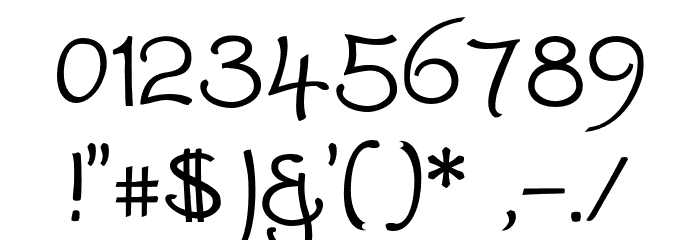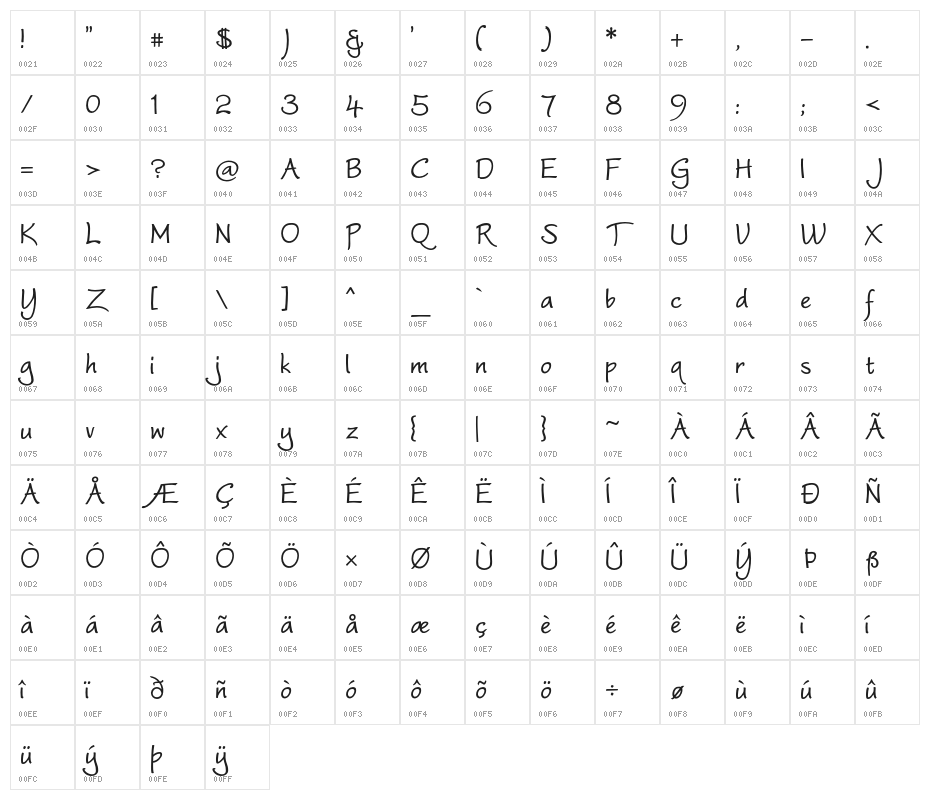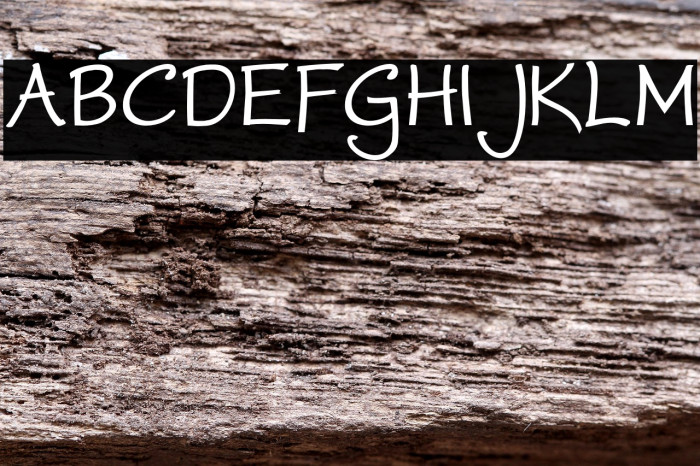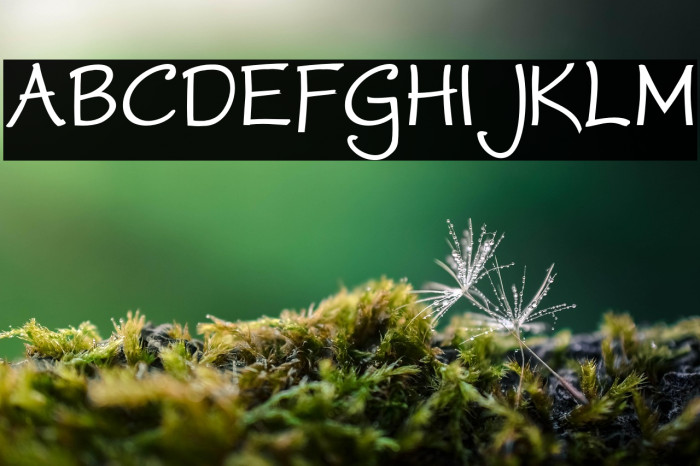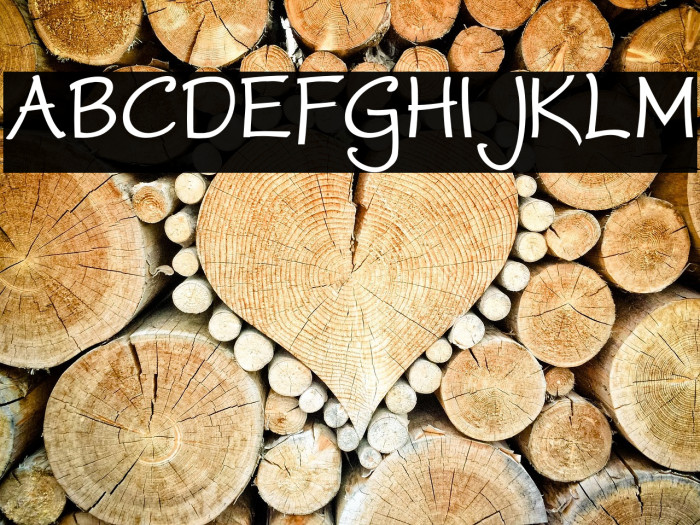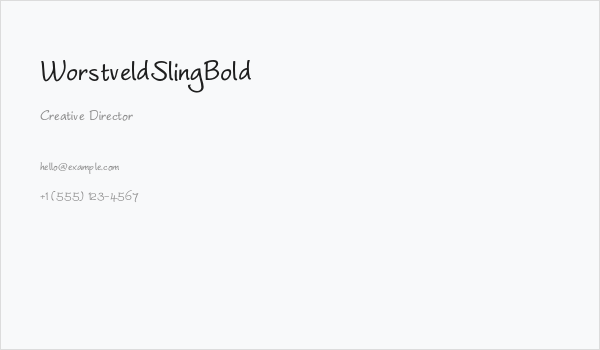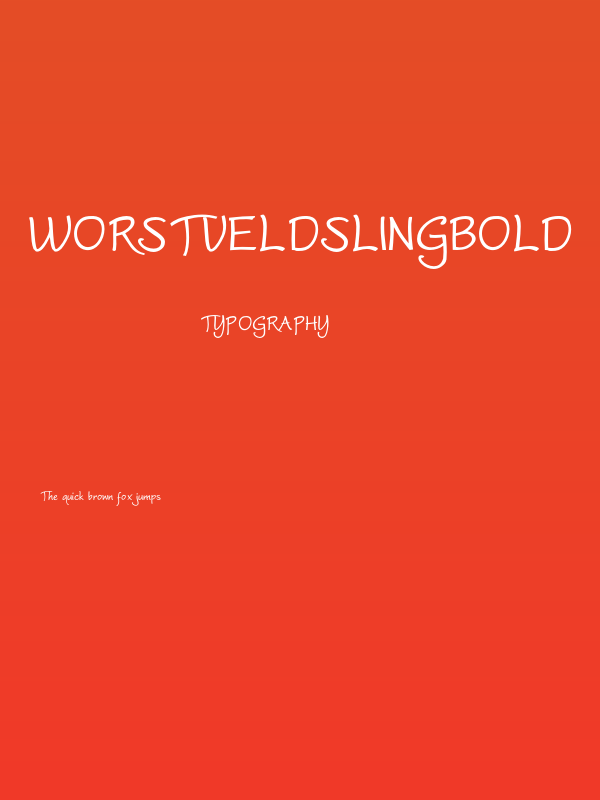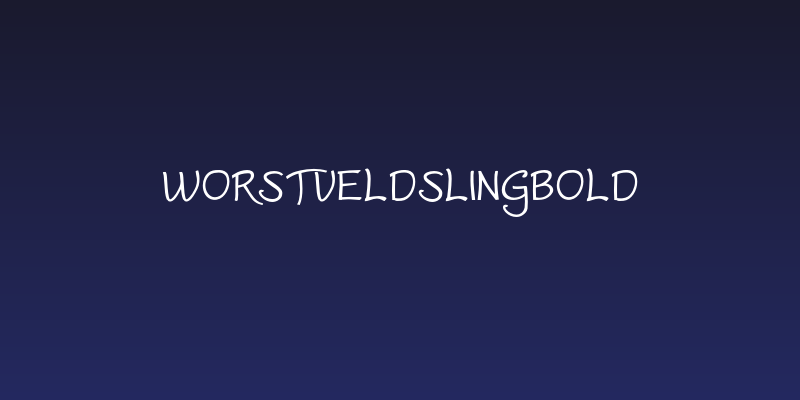
WorstveldSlingBold Font
WorstveldSlingBold Description
This font features a playful and whimsical style, characterized by its handwritten appearance. The letters have a casual, informal feel with slightly irregular strokes that add to its charm. The uppercase letters are bold and prominent, while the lowercase letters maintain a consistent flow with gentle curves and loops. The numerals are distinct and easy to read, complementing the overall aesthetic. Special characters are creatively designed, maintaining the font's unique personality. This font is ideal for projects that require a touch of creativity and informality.